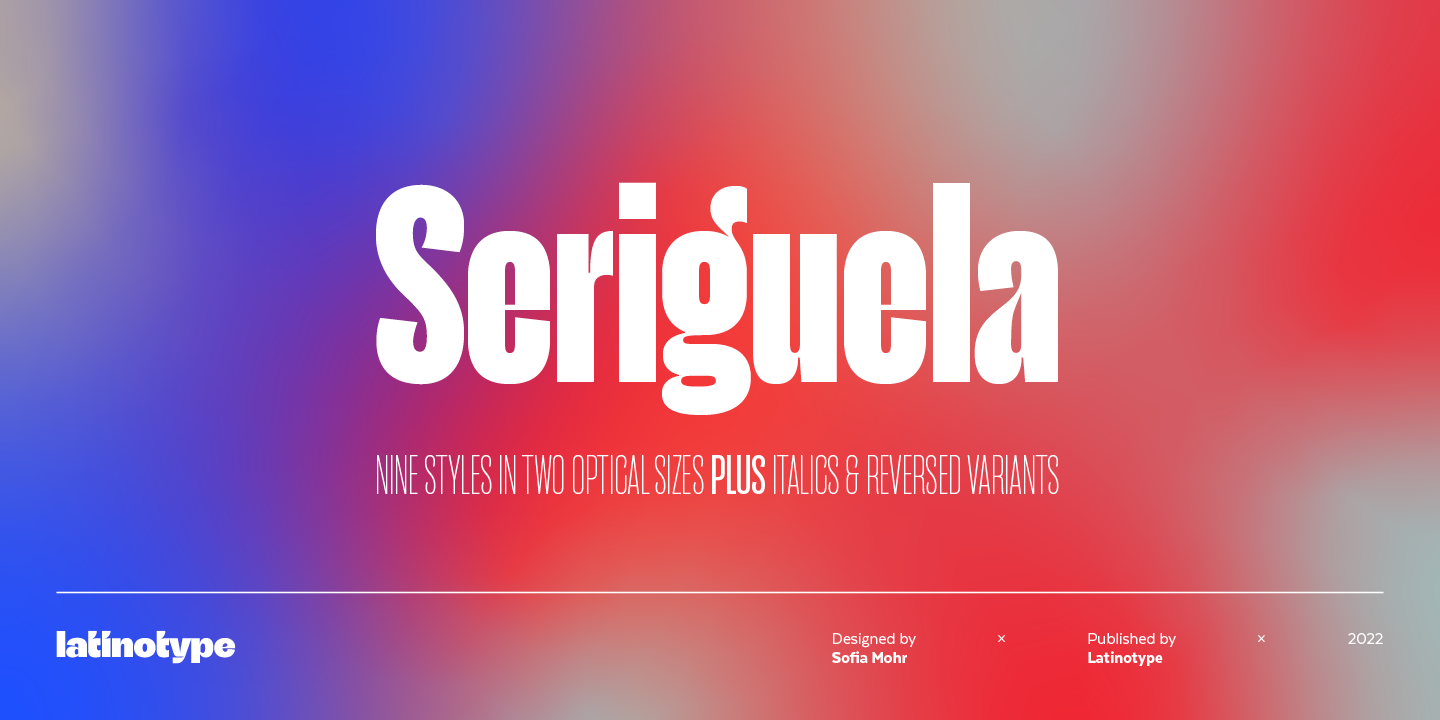
Seriguela Font is perfect for organic food packaging, tropical restaurant branding, natural cosmetics labels, eco-friendly product designs, artisanal cafe signage, handmade craft projects, botanical illustrations, wellness center graphics, and any design project that requires a warm, natural, and approachable aesthetic.
What makes Seriguela Font so exciting is its distinctive organic character that perfectly captures the essence of natural beauty and handcrafted elegance. This font embodies warmth and authenticity with its flowing letterforms that feel both contemporary and timeless. The carefully designed characters evoke the smoothness of tropical fruits and the gentle curves of nature, creating a typography solution that instantly connects with audiences seeking genuine, earth-friendly aesthetics.
The Seriguela Font family typically includes regular weight variations with comprehensive character sets featuring uppercase and lowercase letters, numerals, punctuation marks, and special accent characters that support multiple languages. Some versions may offer additional weights like bold or light variants, along with stylistic alternates that provide designers with creative flexibility for organic-themed layouts.
Seriguela Font Free Download has gained significant popularity among designers working in the organic, wellness, and lifestyle sectors who appreciate authentic, nature-inspired typography. This distinctive typeface performs exceptionally well in both digital and print applications where warm, approachable aesthetics are essential for building trust and connection with environmentally conscious consumers.
The font's organic design makes it particularly effective for food and beverage branding, natural product packaging, wellness industry materials, and sustainable fashion campaigns that need to communicate authenticity and quality. Its smooth character shapes and excellent legibility ensure professional results across various media formats.
Designers choose Seriguela Font for its ability to convey natural beauty and artisanal quality while maintaining modern functionality and versatility. The font's elegant construction works beautifully on everything from product labels to website headers, creating cohesive brand experiences.
Whether you're developing organic food branding, eco-friendly packaging designs, wellness center materials, or nature-inspired promotional graphics, Seriguela Font delivers the perfect blend of organic authenticity and contemporary sophistication that resonates with today's environmentally conscious consumers.